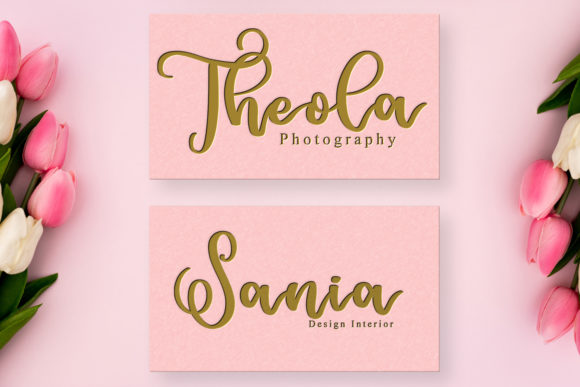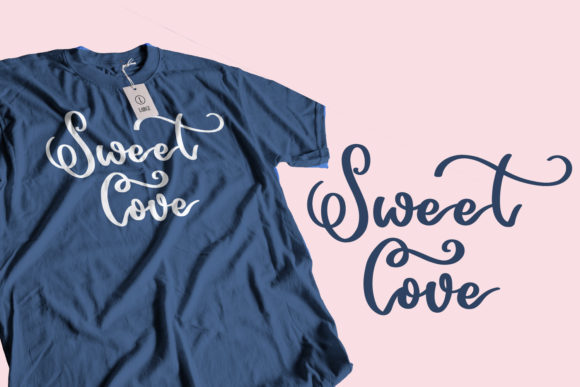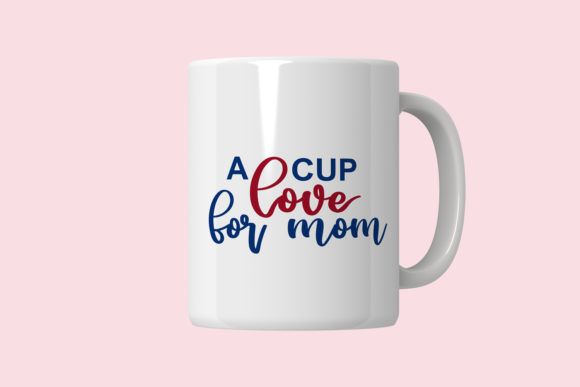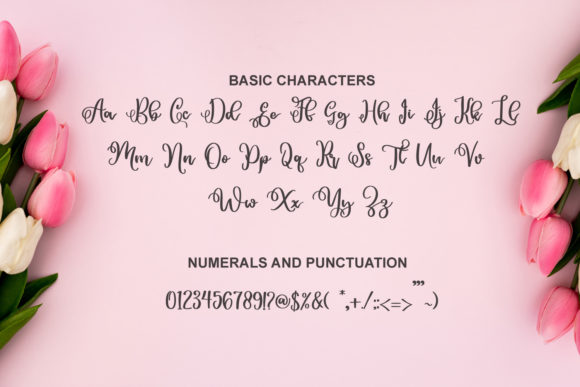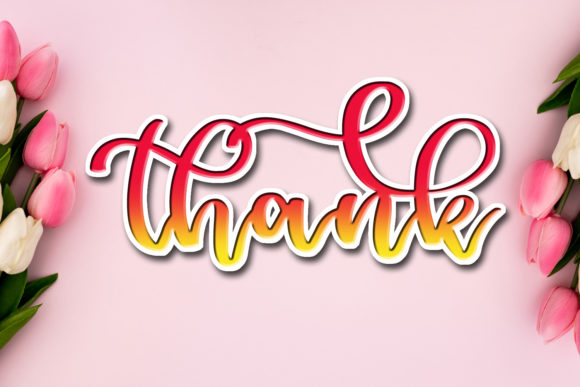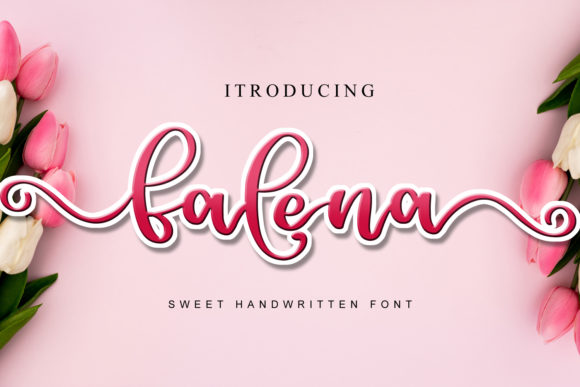
Introducing Falena Font: Elevate Your Designs with Elegance and Sophistication
In the world of typography, a font can make or break the aesthetic of a design. For those seeking a touch of elegance and sophistication, look no further than the Falena Font. This stunning script font is perfect for designers and crafters looking to add a personal, handwritten feel to their projects. Whether you’re working on wedding invitations, thank you cards, quotes, greeting cards, logos, or business cards, Falena Font is the ideal choice.
What Makes Falena Font So Special?
Falena Font stands out from the crowd with its stylish and incredibly elegant script design. Its flowing lines and curves bring a sense of luxury and refinement to any project. The font’s versatility makes it suitable for a wide range of applications, from formal events like weddings and galas to more casual designs such as social media graphics and blog posts.
Key Features of Falena Font
- PUA Encoding: Falena Font is PUA (Private Use Area) encoded, which means you can easily access all the glyphs and swashes. This feature allows for greater flexibility and creativity in your designs, enabling you to experiment with different styles and flourishes.
- Handwritten Touch: The font’s script design gives it a personal, handwritten feel that’s perfect for adding a touch of warmth and personality to your projects.
- Elegant and Sophisticated: Falena Font exudes elegance and sophistication, making it ideal for designs that require a high level of refinement.
Whether you’re a professional designer or a crafter looking to create beautiful, unique projects, Falena Font is an excellent choice. Its ease of use and versatility make it accessible to designers of all skill levels. With Falena Font, you can:
- Create stunning wedding invitations and stationery
- Design beautiful greeting cards and thank you cards
- Develop elegant logos and branding materials
- Enhance your social media graphics and blog posts with a touch of sophistication
Tips for Using Falena Font
To get the most out of Falena Font, here are a few tips:
- Experiment with Swashes: Take advantage of the font’s PUA encoding to experiment with different swashes and glyphs. This will help you create unique and eye-catching designs.
- Pair with Other Fonts: Falena Font pairs well with a variety of other fonts. Try combining it with a sans-serif font for a modern look or with another script font for a more dramatic effect.
- Use for Headlines and Titles: Falena Font is perfect for headlines and titles, where its elegant and sophisticated design can really shine.
In conclusion, Falena Font is a stylish and elegant script font that’s perfect for designers and crafters looking to add a touch of sophistication to their projects. Its PUA encoding, handwritten touch, and versatility make it an excellent choice for a wide range of applications. With Falena Font, you can create stunning designs that are sure to impress.